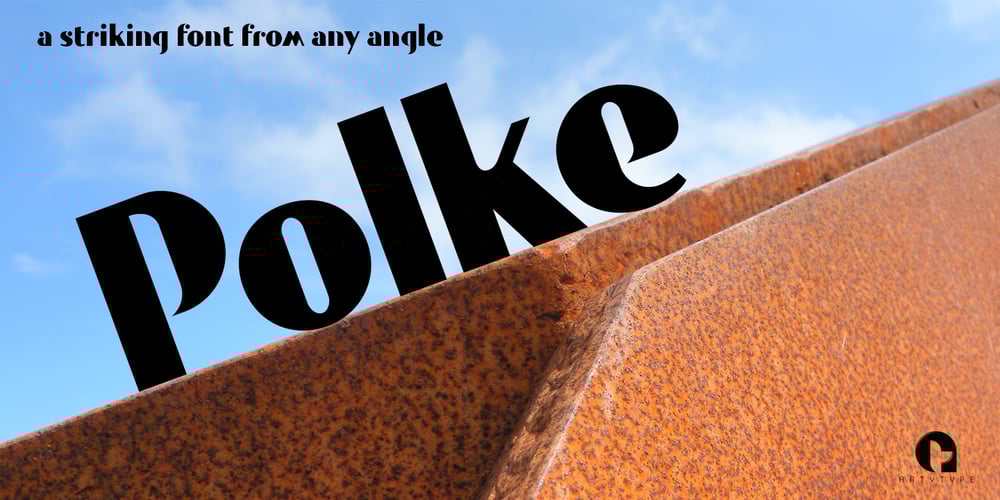
Polke
Polke font
Polke Font Family was designed by James Marsh and published by ArtyType. Polke contains 1 styles and family package options. Polke is a single weight display face brimming with style and charm but simultaneously exuding impressive core strength and a vibrant personality. Floating ball terminals rub shoulders with contrasting sharp and rounded letterforms to produce a distinctively decorative headline font built on robust foundations. Polke’s name is derived from the striking terminal dots which dominate the character set, creating a Polka-Dot effect throughout. I also had the artist Sigmar Polke in mind which explains the spelling, and so the two ideas simply morphed together.